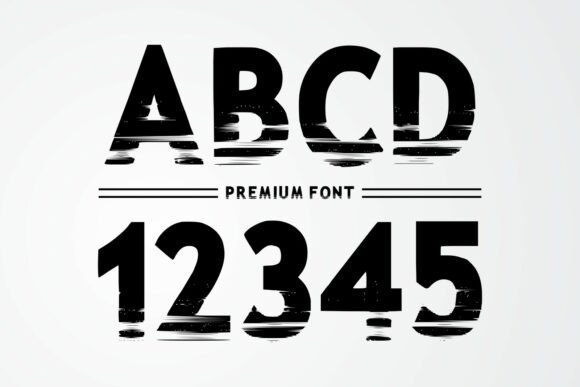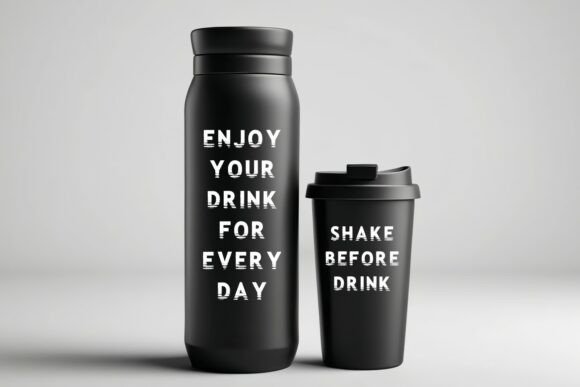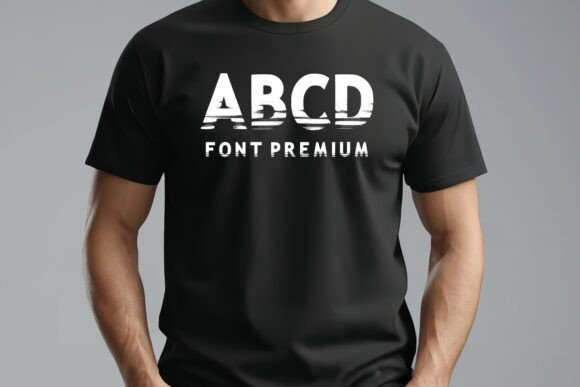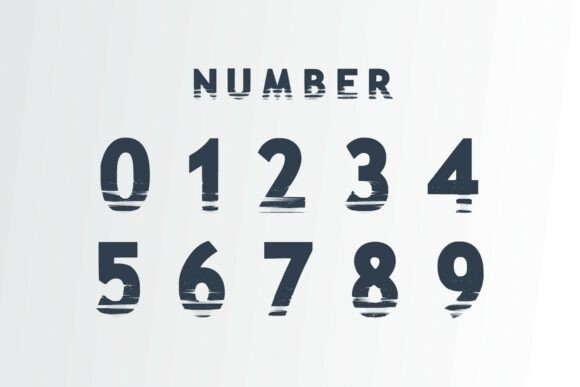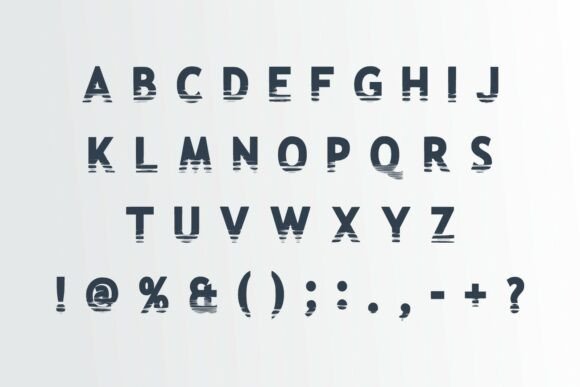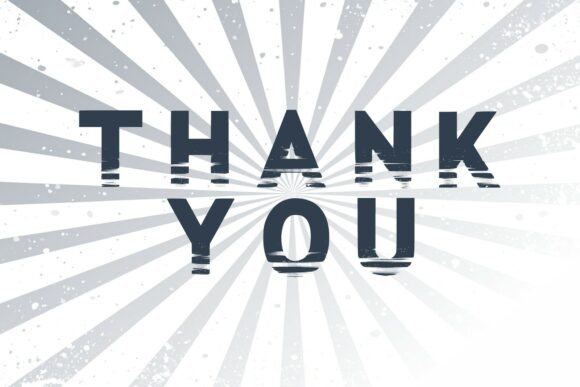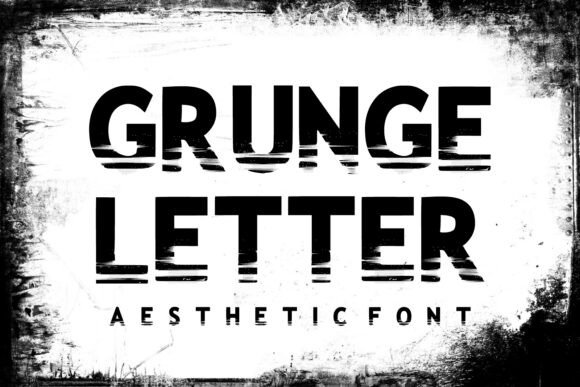
Grunge Letter Font: Elevate Your Designs with a Bold, Contemporary Style
In the world of typography, fonts play a crucial role in conveying the tone and personality of a brand or design. For designers and crafters looking to make a statement, the Grunge Letter Font is an excellent choice. This bold, contemporary display font exudes confidence and charisma, making it perfect for projects that require a modern and dynamic visual identity.
What Sets Grunge Letter Font Apart
The Grunge Letter Font boasts a unique design that features striking contrasts between uppercase and lowercase letterforms. This distinctive characteristic transforms each glyph into a dynamic visual statement, setting it apart from more traditional fonts. The athletic edge and modern flair of Grunge Letter Font make it an excellent choice for designers looking to add a touch of sophistication and elegance to their work.
Key Features of Grunge Letter Font
- Bold and Contemporary Design: Grunge Letter Font features a bold and contemporary design that is sure to grab attention.
- Striking Contrasts: The font’s design features striking contrasts between uppercase and lowercase letterforms, making each glyph a dynamic visual statement.
- Athletic Edge: The font’s athletic edge gives it a modern and sleek look that is perfect for designs that require a touch of sophistication.
- Modern Flair: Grunge Letter Font’s modern flair makes it an excellent choice for designers looking to add a touch of elegance to their work.
Grunge Letter Font is perfect for designers and crafters who want to elevate their designs with a bold and contemporary style. Whether you’re working on a branding project, a website design, or a craft project, this font is sure to make a statement. Its versatility and legibility make it an excellent choice for a wide range of applications, from headings and titles to logos and signage.
Tips for Using Grunge Letter Font
To get the most out of Grunge Letter Font, here are a few tips to keep in mind:
- Use it as a Display Font: Grunge Letter Font is perfect for use as a display font, making it ideal for headings, titles, and other prominent text elements.
- Experiment with Color: The font’s bold design makes it perfect for experimenting with color. Try pairing it with bright, bold colors to create a striking visual effect.
- Mix and Match: Don’t be afraid to mix and match Grunge Letter Font with other fonts to create a unique and visually appealing design.
In conclusion, Grunge Letter Font is a bold, contemporary display font that is perfect for designers and crafters looking to elevate their designs with a modern and dynamic visual identity. Its striking contrasts, athletic edge, and modern flair make it an excellent choice for a wide range of applications. With its versatility and legibility, Grunge Letter Font is sure to become a go-to font for designers and crafters looking to make a statement.